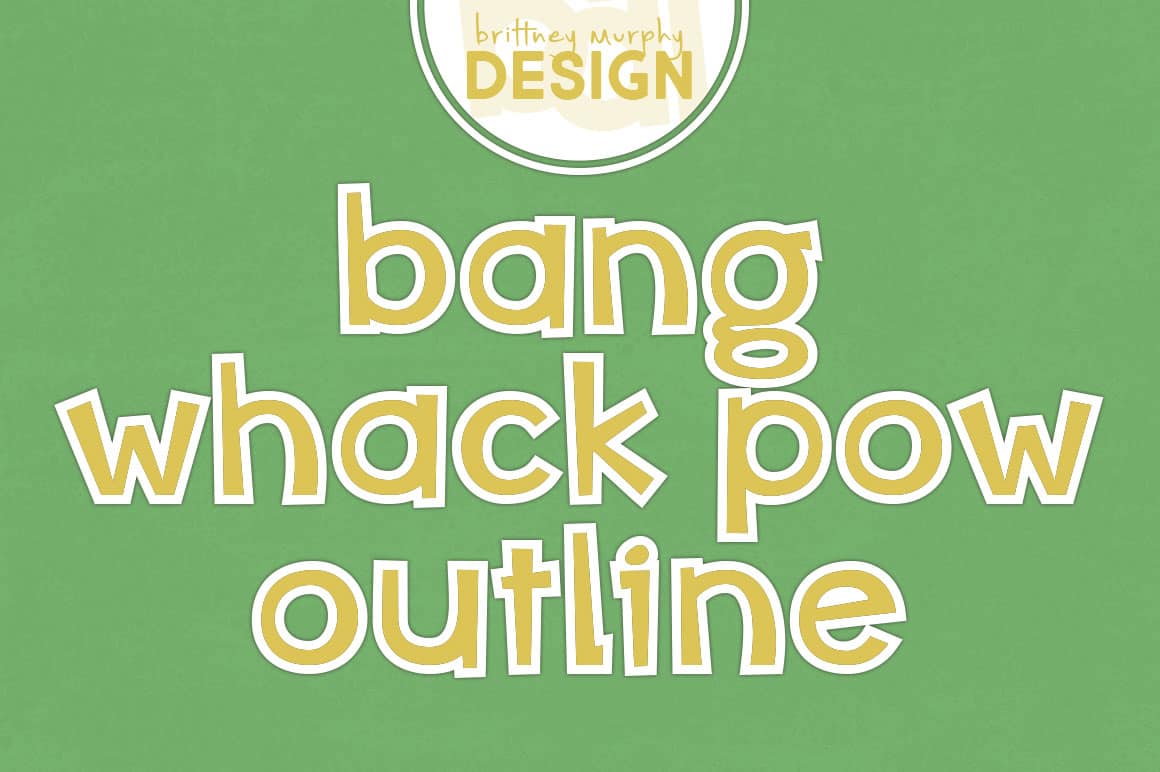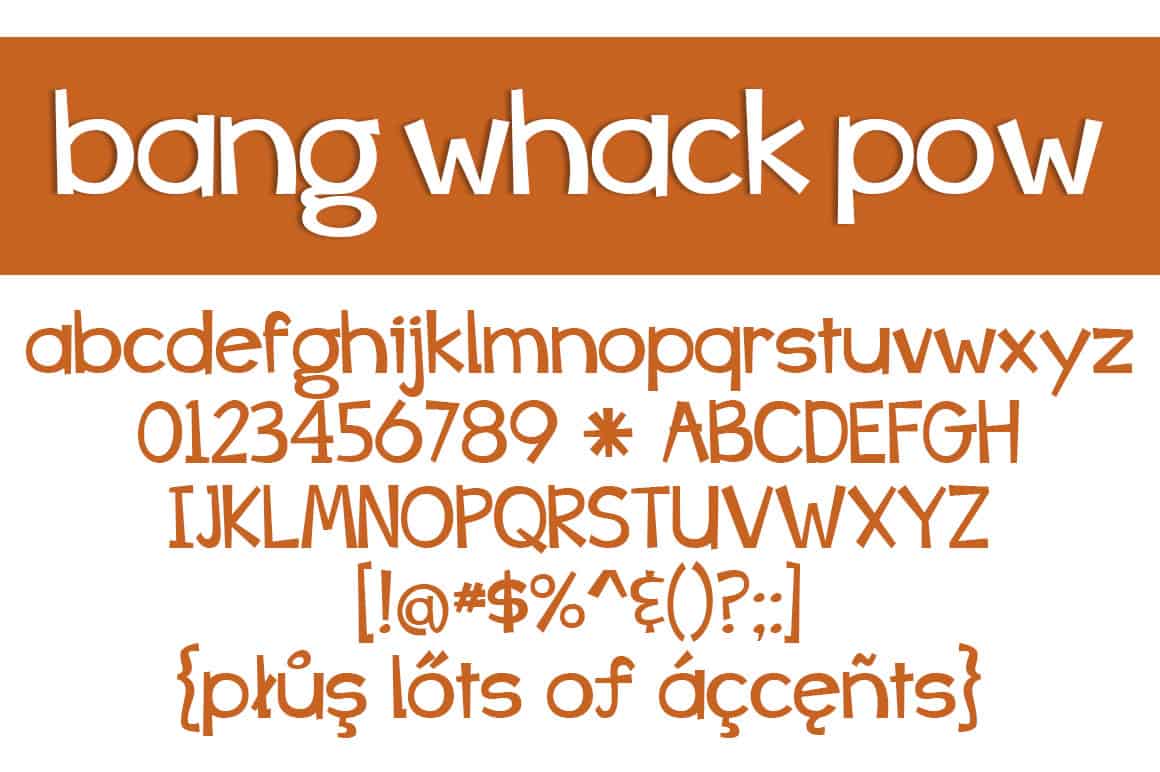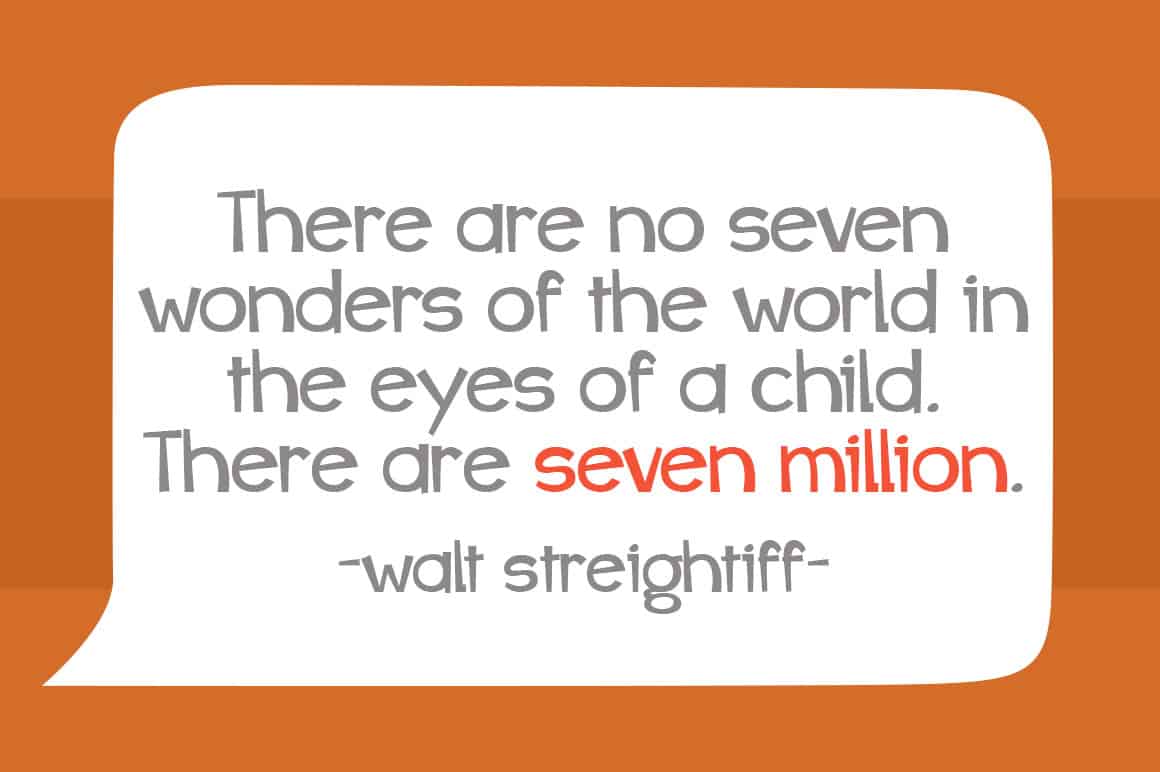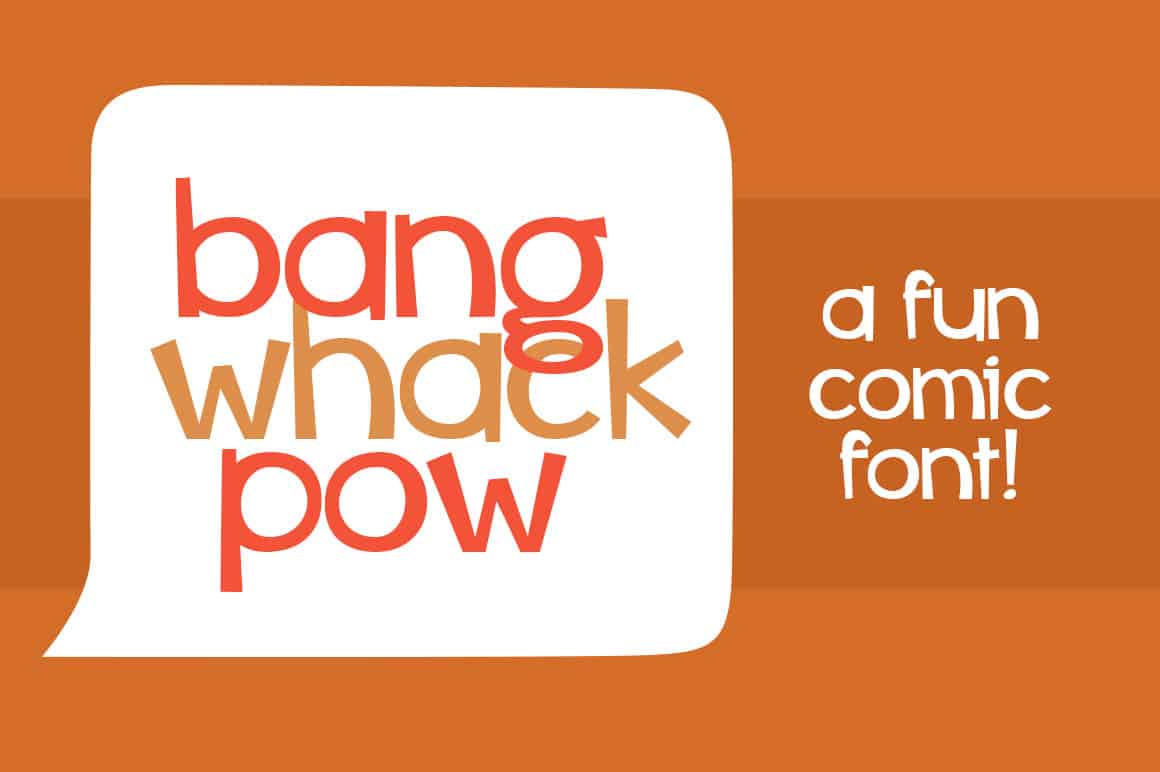
Bang Whack Pow
The Bang Whack Pow Font is a bold comic book font created in 2012 by Brittney Murphy Design. Bang Whack Pow features 531 characters and supports most latin based languages as well as cyrillic. Great for use is any of your projects that need a childish or comic feeling.